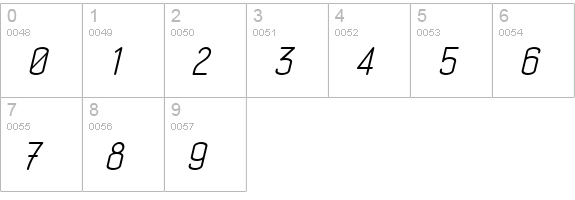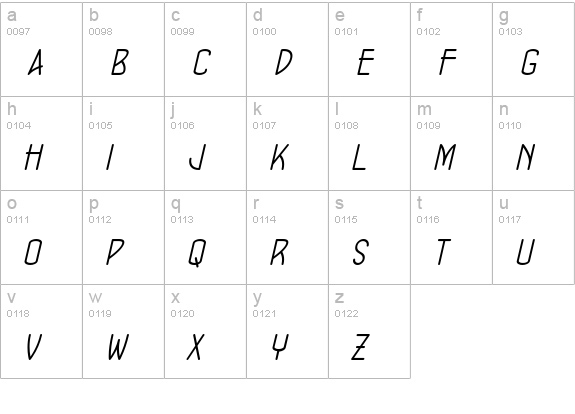
ConcursoModerne BTN Lt Oblique Font Details
ConcursoModerne BTN Lt Oblique is a distinctive, italic variant in the ConcursoModerne typeface family \xE2\x80\x94 well suited to design and typography projects.
ConcursoModerne BTN Lt Oblique font is a sleek and modern typeface perfect for adding a touch of sophistication to your design projects. With its elegant slanted style, this font exudes a sense of contemporary flair while maintaining a classic appeal. The clean lines and subtle curves of ConcursoModerne BTN Lt Oblique make it versatile for a wide range of applications, from branding to editorial design. This font is a fantastic choice for creating a professional and polished look, whether you're working on a website, a logo, or a print publication. Its readability and distinct personality set it apart from other typefaces, making it a standout choice for designers looking to make a statement. Best of all, ConcursoModerne BTN Lt Oblique font is freely available to download at FontsMarket.com. So you can easily add this stylish typeface to your collection and start using it in your projects right away. Don't miss out on the opportunity to enhance your designs with this beautiful and versatile font.